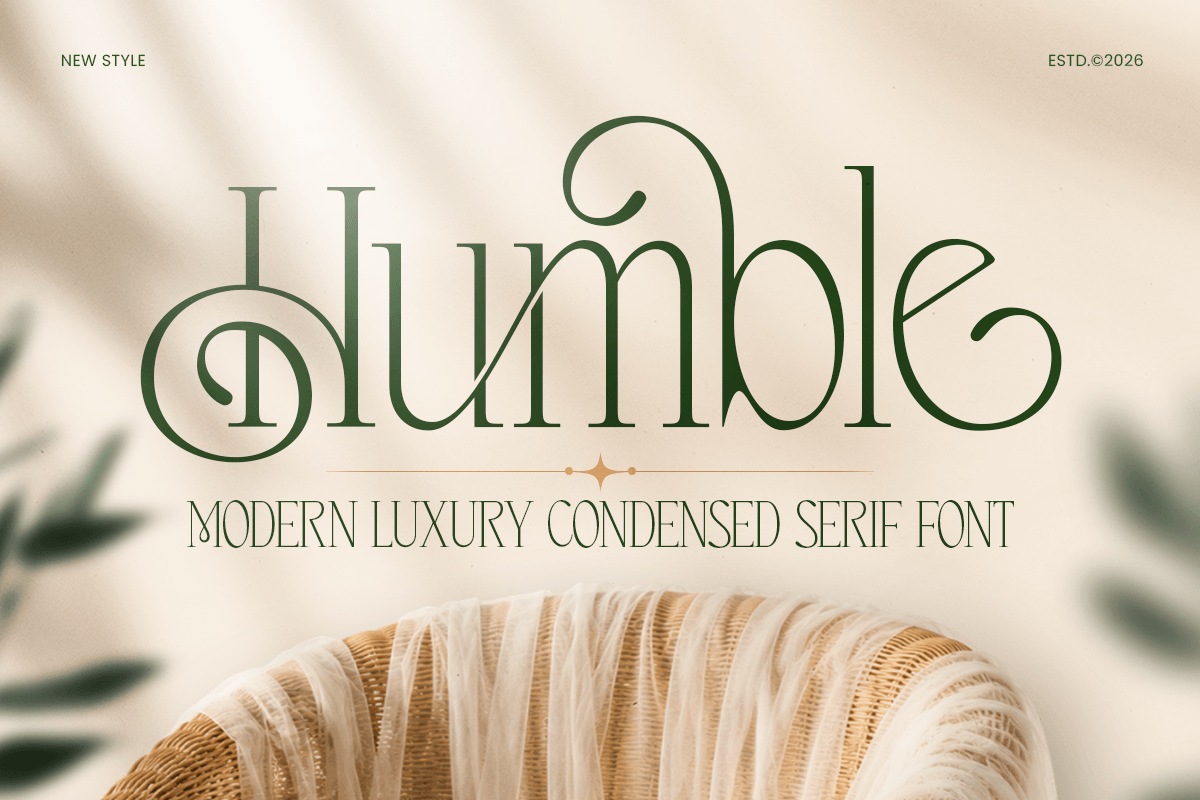
Humble
-Modern Luxury Condensed Serif Font
Humble - Modern Luxury Condensed Serif Font
Humble is a modern luxury condensed serif font designed to create elegant and sophisticated visual identities with a refined vertical structure. Featuring tall proportions, graceful serif details, and a premium display style, this typeface is perfect for luxury branding, fashion editorials, logo design, packaging, and high-end creative projects.
With its condensed form, Humble delivers a strong visual impact while maintaining elegance and readability. Its sophisticated letterforms create a timeless appearance that works beautifully for magazine titles, boutique identities, beauty products, wedding stationery, and premium lifestyle brands.
Designed for creators who value minimal luxury and modern typography, Humble brings a confident and exclusive character to both print and digital applications.
Humble – Modern Luxury Condensed Serif Font Features
• Modern condensed serif design with luxury appeal
• Perfect for logos, branding, editorials, packaging, and premium identities
• Tall elegant proportions for impactful typography
• Refined serif details with sophisticated visual balance
• Ideal for fashion, beauty, wedding, lifestyle, and boutique brands
• OpenType features for enhanced typographic styling
Create a refined luxury statement with Humble – the perfect condensed serif font for premium branding, elegant logo, editorial design, and sophisticated typography. ✨